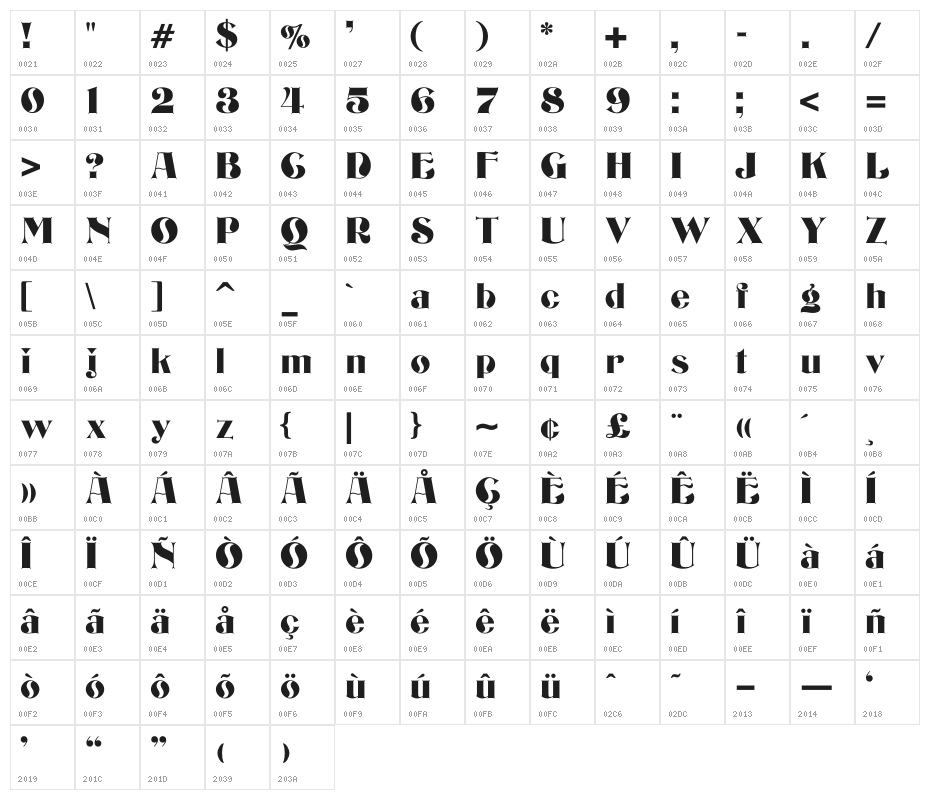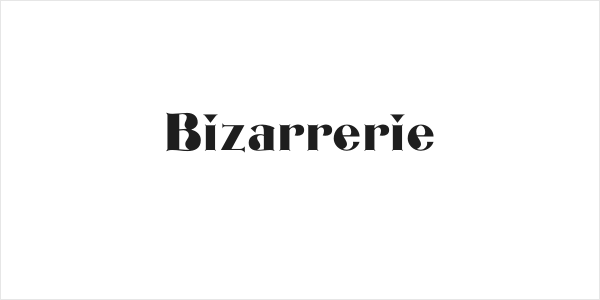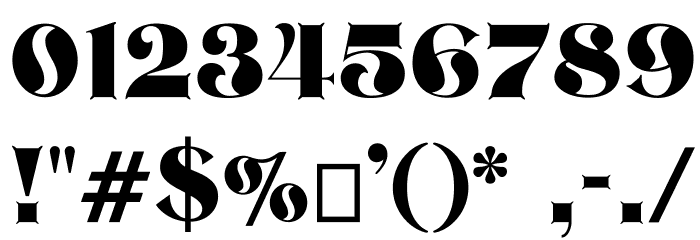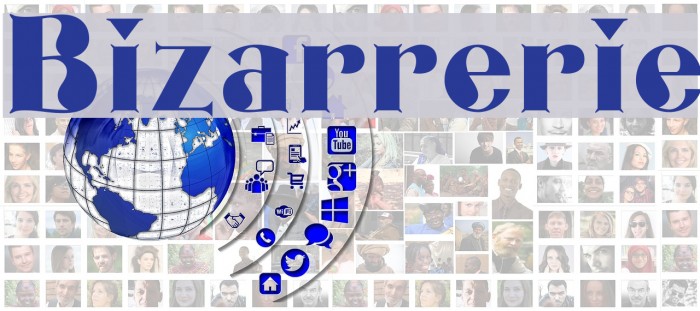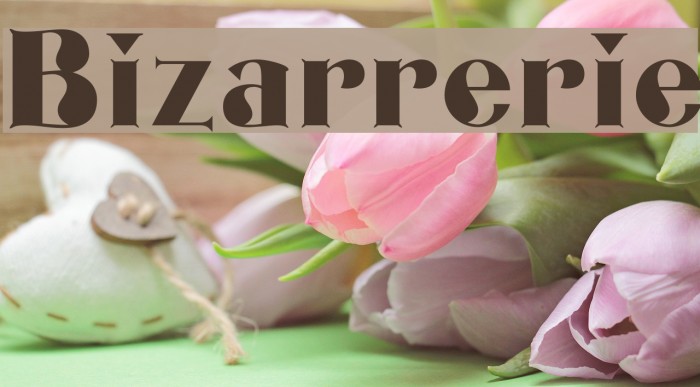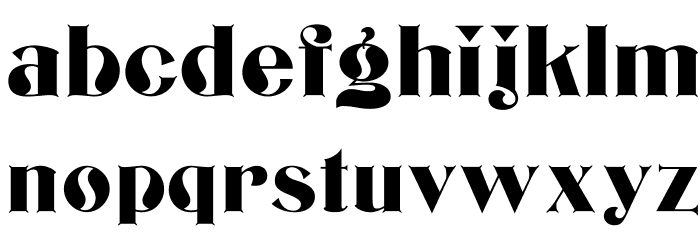
Bizarrerie Font
Bizarrerie Description
This font features a bold and dramatic style with high contrast between thick and thin strokes. The characters have a unique, almost theatrical appearance, with sharp angles and exaggerated curves that give it a distinct personality. The uppercase letters are particularly striking, with a sense of grandeur and flair. The lowercase letters maintain the same boldness, ensuring consistency across the typeface. The numerals and special characters follow the same design principles, making them stand out with their bold presence. This font is ideal for making a statement and capturing attention.
| Proposed Projects | Ideal for posters, branding, headlines, and any project that requires a bold, attention-grabbing typeface. |